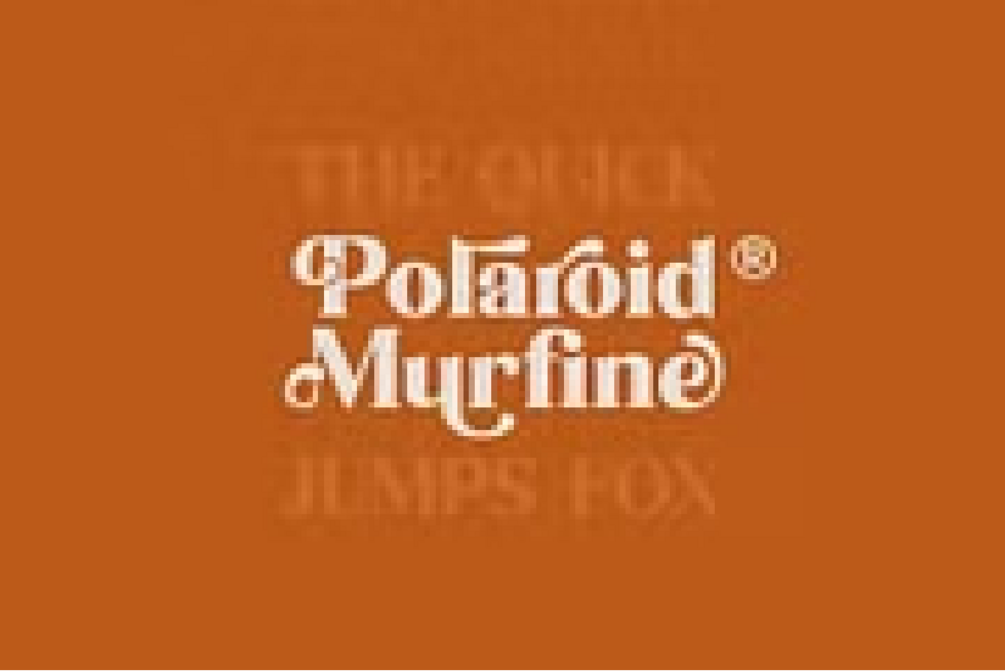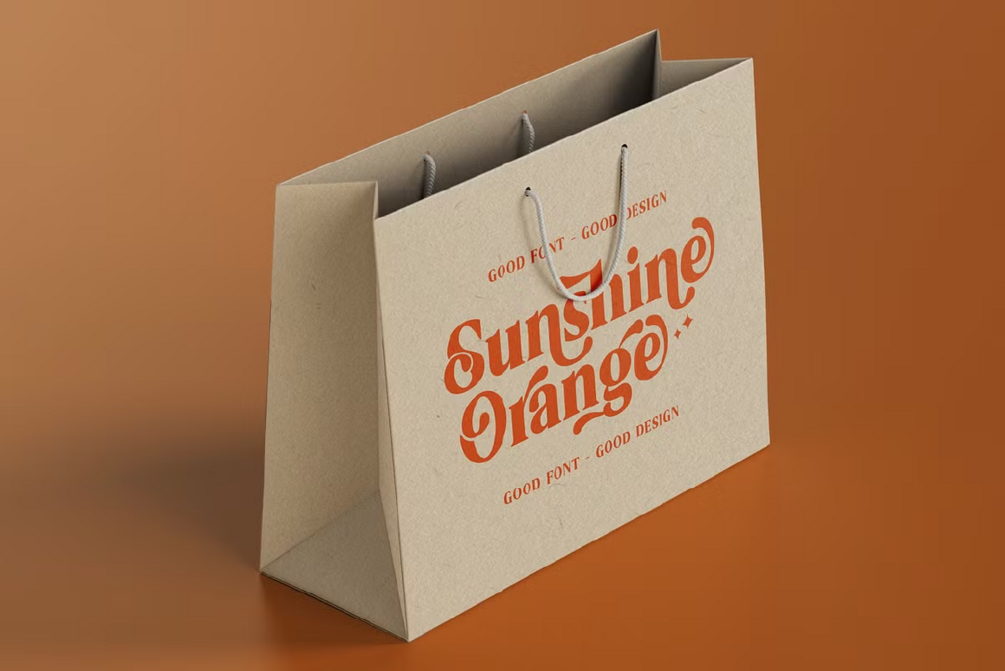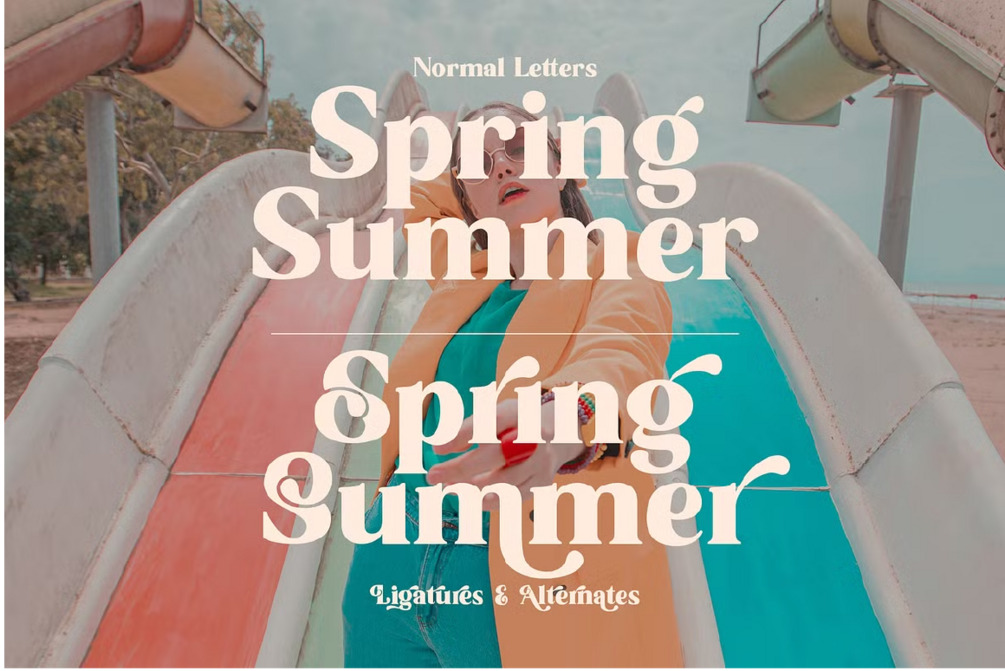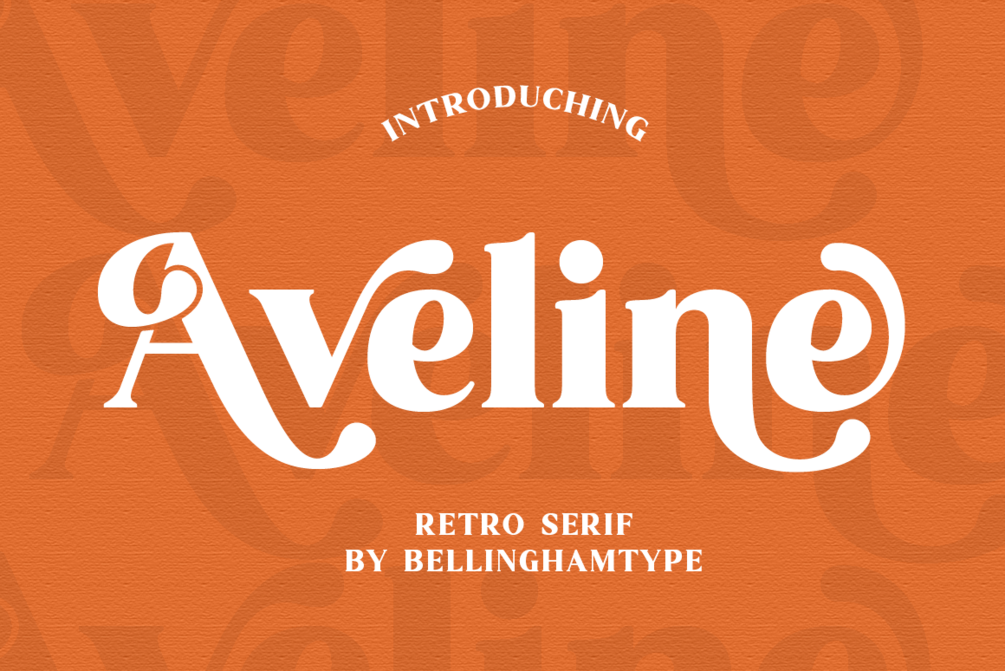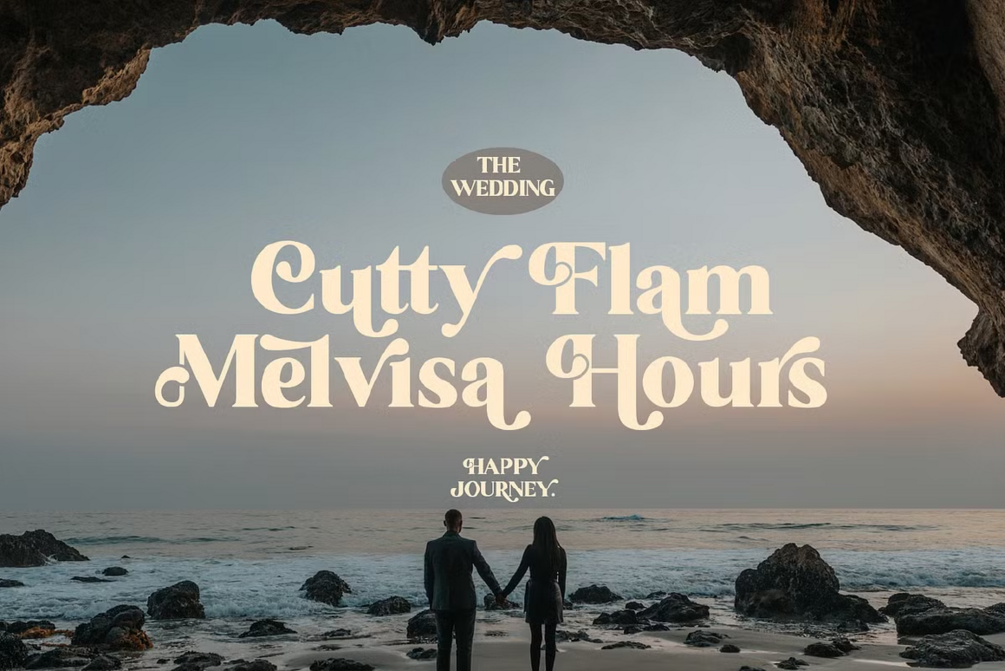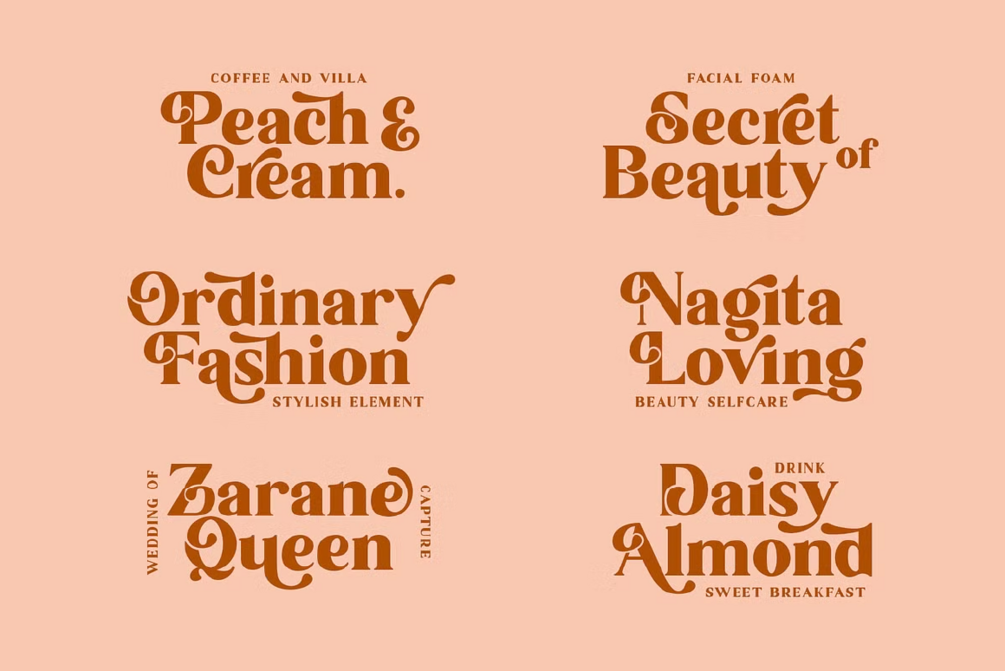
Aveline
Aveline is Psychedelic font. This font would be perfect for photography, watermarks, social media posts, advertisements, logos & branding, invitations, product design, labels, stationery, product packaging, special events, and other projects.